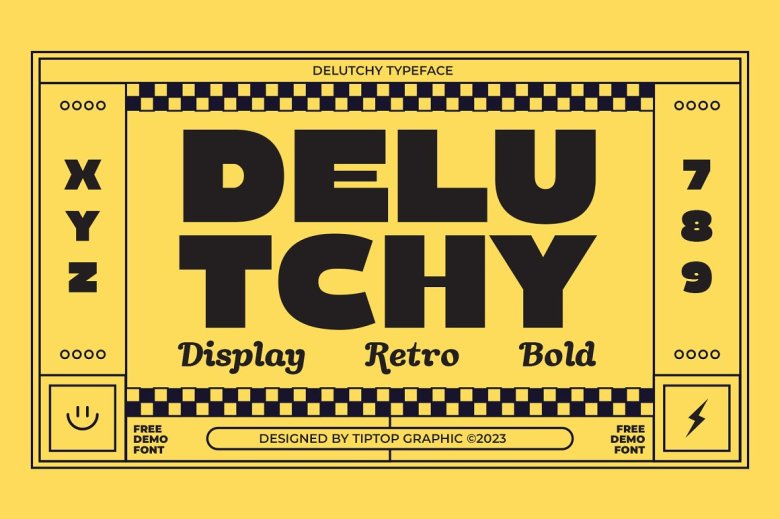
Delutchy Font
Delutchy showcases a retro bold font inspired by motorcycle racing history. This font stands out and can be used for clothing designs, magazine headers and logo designs.
Delutchy Display Font